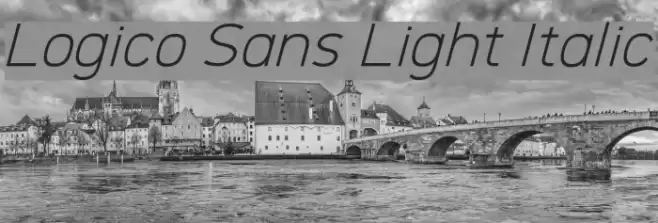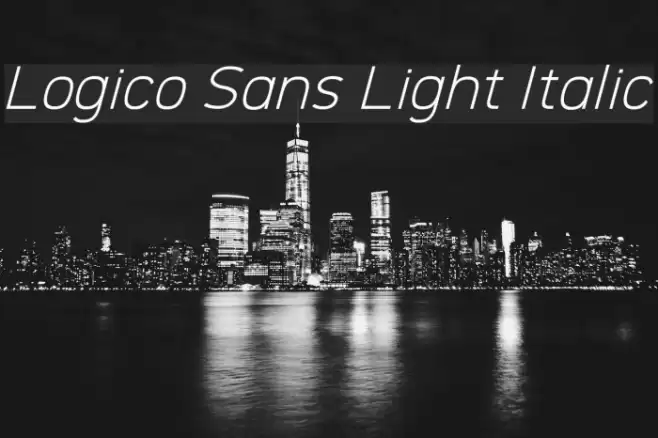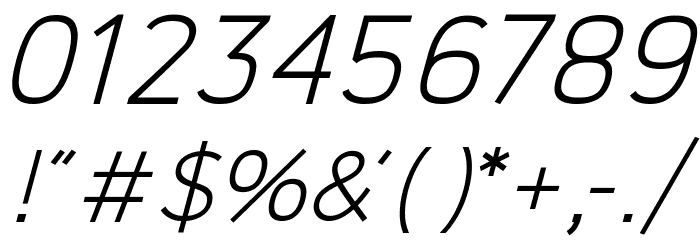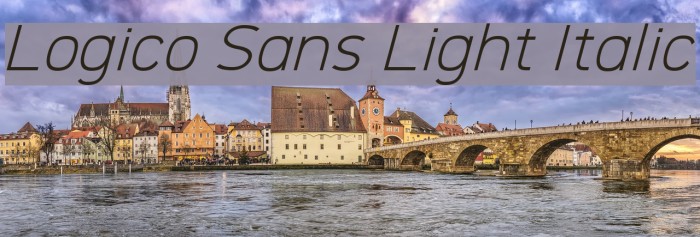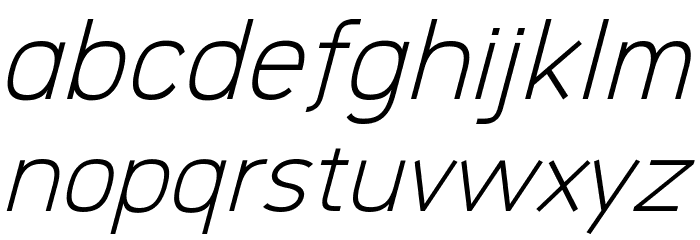
Logico Sans Light Italic Font
Logico Sans Light Italic Description
This font features a sleek and modern sans-serif design with a light weight and italic style. The characters are slightly slanted, giving a sense of motion and elegance. The strokes are uniform with low contrast, maintaining a clean and minimalist appearance. The character spacing is normal, allowing for good readability while preserving a stylish look. The font includes a full set of uppercase and lowercase letters, numerals, and a variety of special characters, making it versatile for various design needs.
A modern, light, italic sans-serif font with clean lines and low contrast from Uncategorized fonts.
- Proposed Projects: Ideal for modern branding projects, elegant website headers, stylish invitations, and minimalist graphic designs.